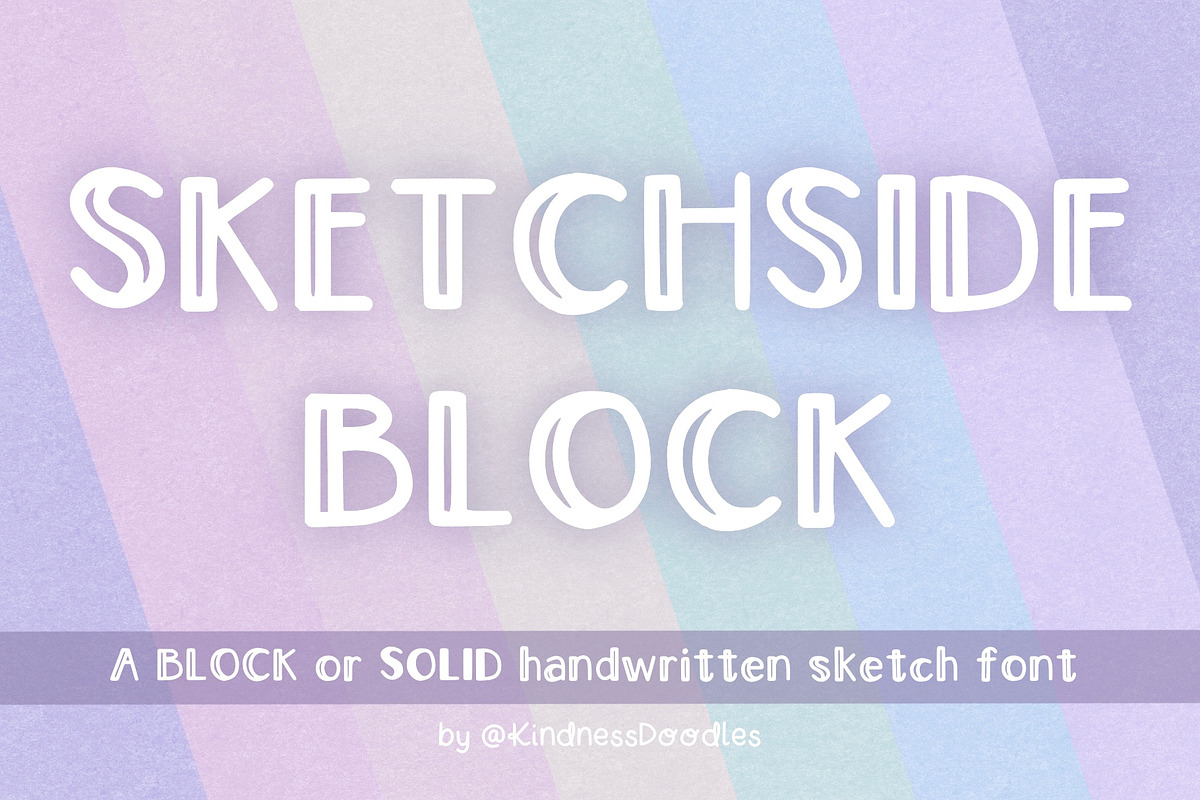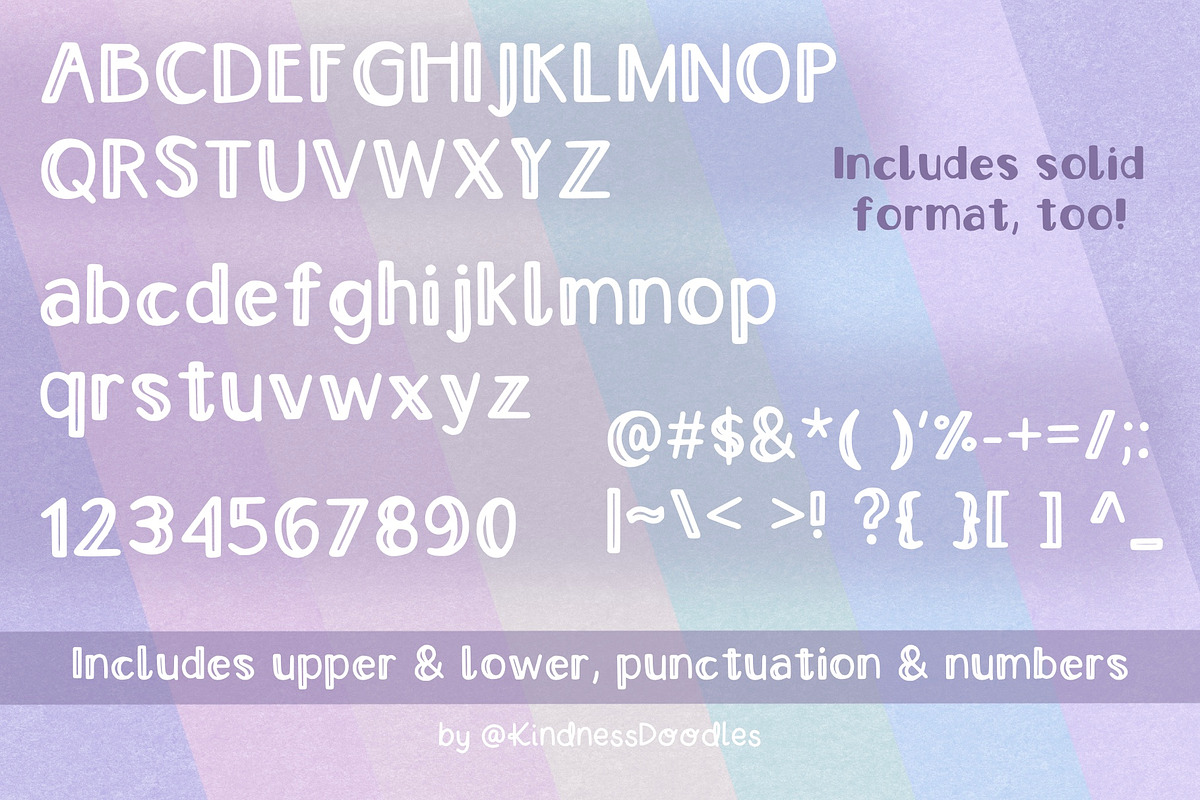
Sketchside Block
A fun block or solid filled handwritten sketch font made with love by @KindnessDoodles!
2 fonts included - Sketchside Block and Sketchside Solid.